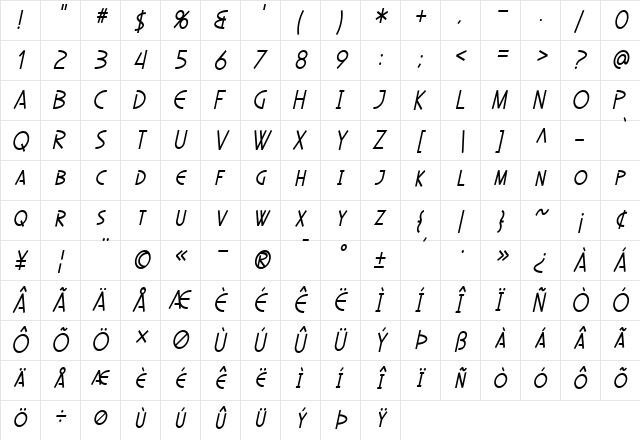
SF Diego Sans Condensed Oblique Font Preview
Design Context for SF Diego Sans Condensed Typeface
SF Diego Sans Condensed offers clean, dependable letterforms without strong stylistic allegiance, making it a practical choice for designers who need flexibility. The dynamic lean of this cut emphasises speed and emphasis in any layout. The condensed width makes it efficient for tight spaces without sacrificing legibility.
Pro Tip: Use SF Diego Sans Condensed for emphasis, pull quotes, and subheadings where its slanted energy can add rhythm to the layout.